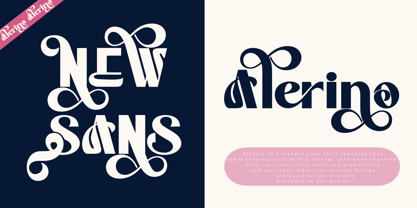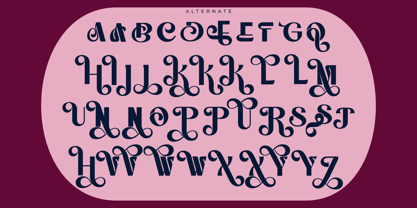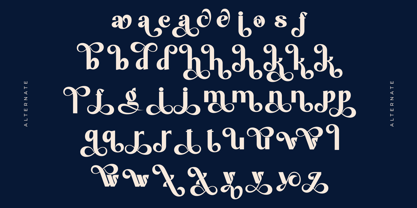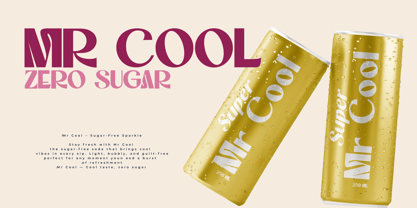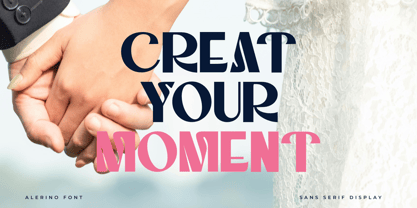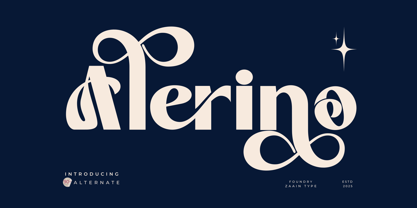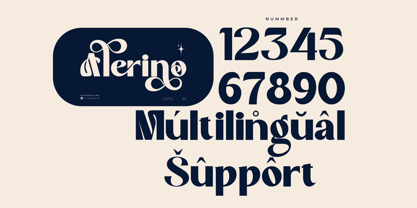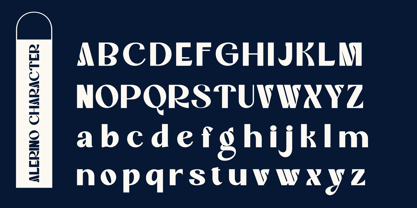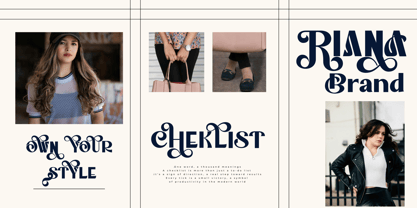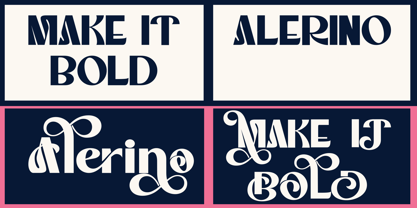
Alerino
by Zaain Type
The Alerino Font Family was designed by Ju Naen and published by Zaain Type. Alerino contains 2 styles and family package options.
Alerino is a clean and modern sans serif typeface designed for clarity and elegance. Its balanced letterforms and smooth geometry make it versatile for both display and text use. With a touch of minimalism, Alerino brings a professional and timeless feel to every design — from branding and advertising to editorial and digital interfaces. Each curve and stroke is carefully crafted to ensure excellent legibility and visual harmony. Alerino shines in logos, posters, packaging, and modern web layouts, giving your project a refined yet approachable character